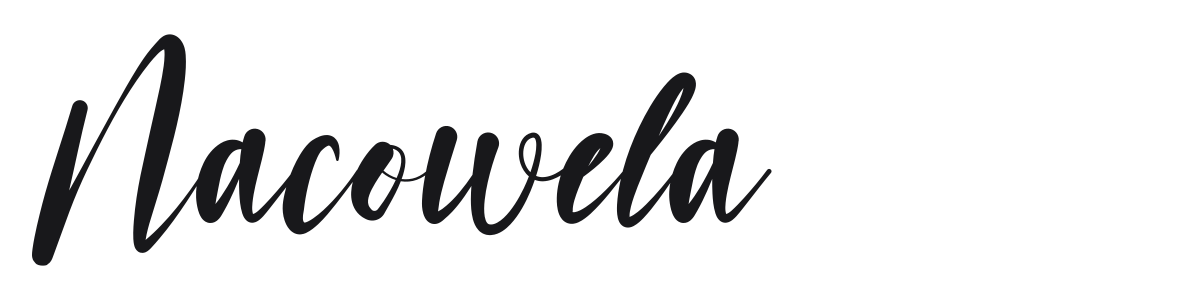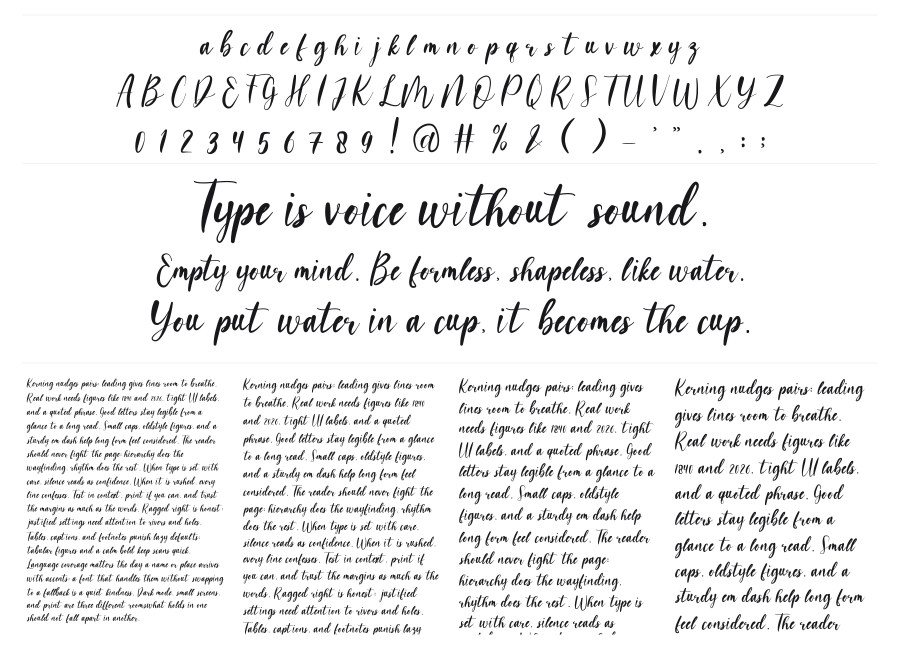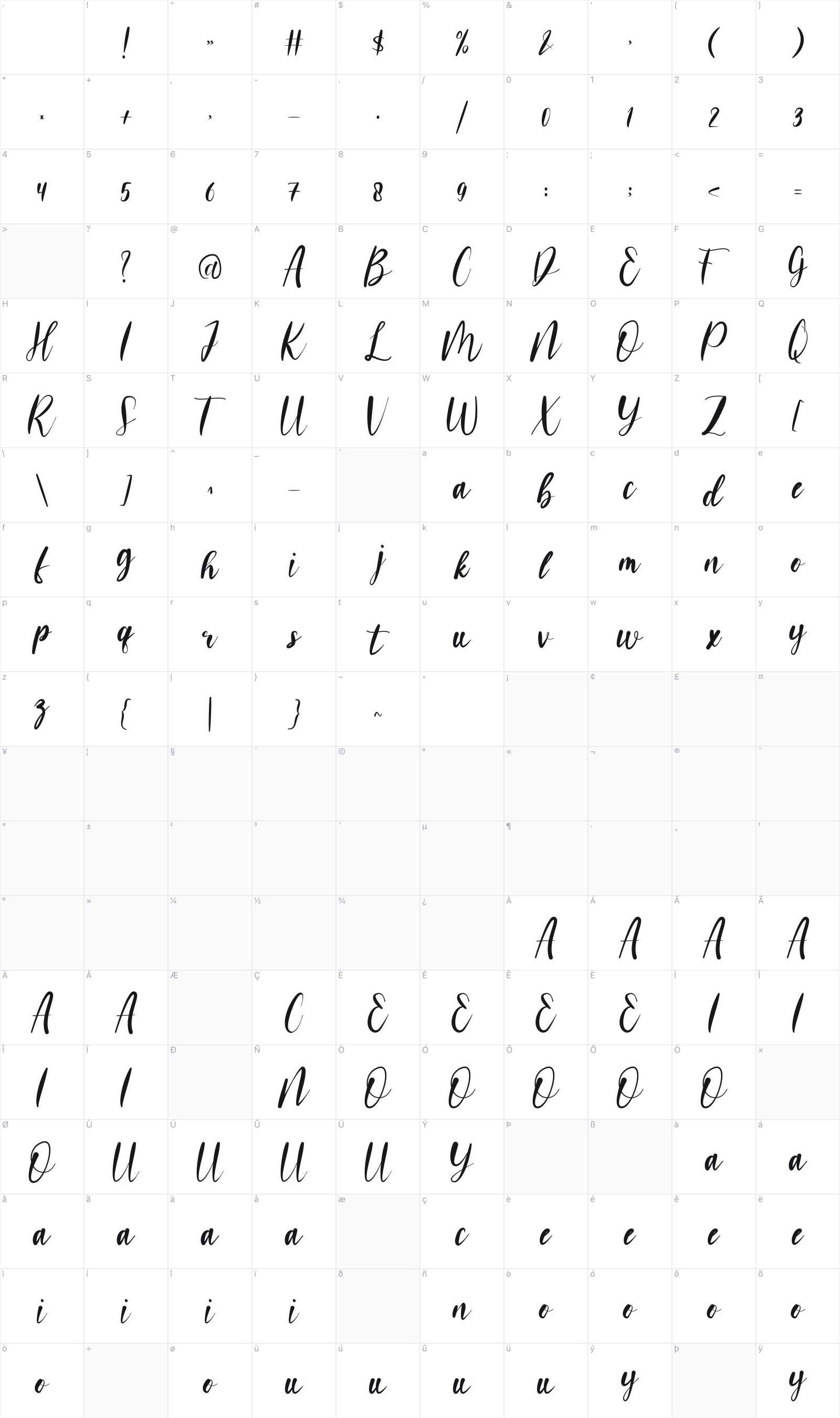
Nacowela
Nacowela is a flowing contemporary brush script with warm calligraphic energy and natural ink-like stroke contrast. The connected letters move with an easy, handwritten rhythm that sits between casual and elegant. It suits wedding stationery, lifestyle branding, and any context where warmth and personality matter.